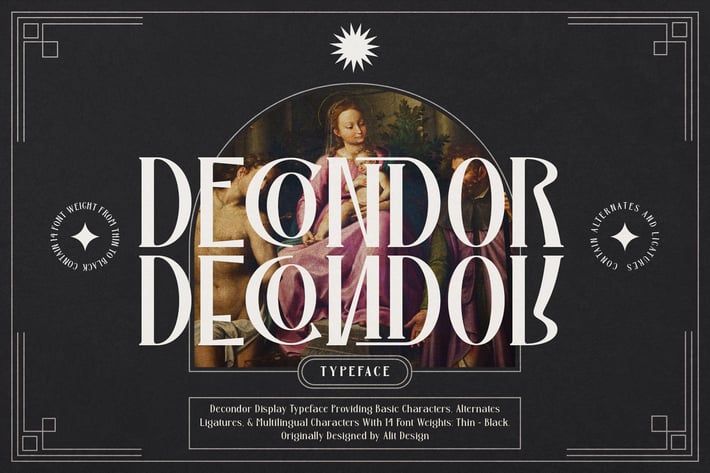
Decondor Typeface
DECONDOR font family consists of 14 families, from Thin to Heavy style fonts. The elegant modern font creates a unique design and is sure to steal the eye of the design target audience. Besides being unique, the DECONDOR font also has a luxury simple character that makes the design charming and classic luxurious.
These a fonts are perfect for designs with the concept of elegant, luxury, romance, fashion, classic royal and so on.
A-Z Character Set
Numerals & Punctuations (OpenType Standard)
Stylistic Alternates
Ligatures